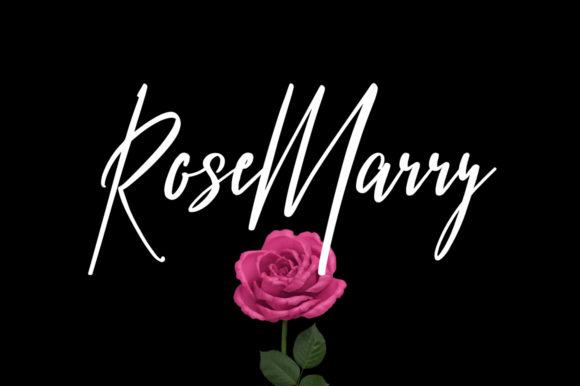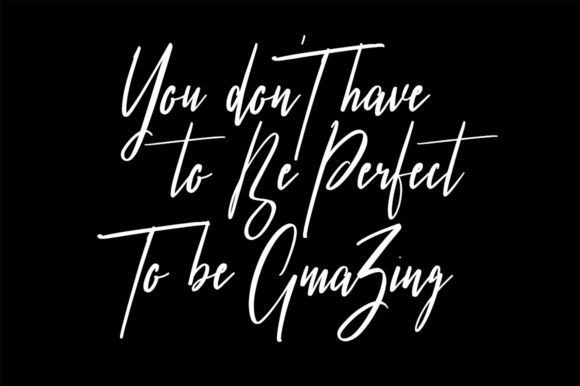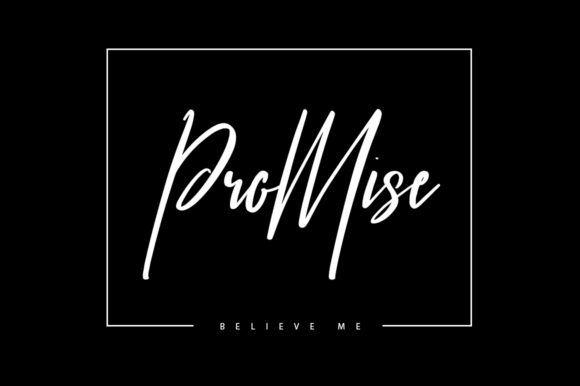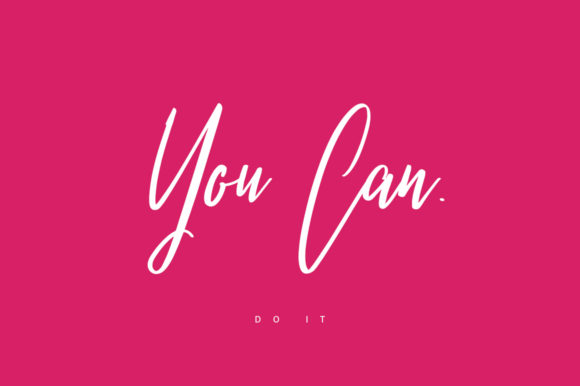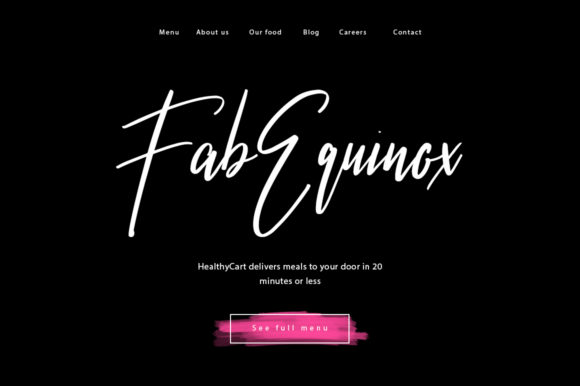
Introducing Contaur Font: The Modern Script Font for Creative Projects
In the world of typography, fonts play a crucial role in conveying the tone and personality of a brand or project. For designers and crafters looking for a modern and trendy script font, Contaur Font is an excellent choice. This amazing script font brings its own unique style and is perfect for creating stunning logos, branding materials, social media graphics, and crafty DIY projects.
What Makes Contaur Font Stand Out?
Contaur Font boasts a distinctive and elegant design that sets it apart from other script fonts. Its modern and trendy look makes it an ideal choice for designers and crafters who want to add a touch of sophistication to their projects. The font’s unique style is characterized by its flowing lines, beautiful swashes, and intricate details.
When it comes to creating logos and branding materials, the right font can make all the difference. Contaur Font is designed to help you create stunning logos that reflect your brand’s personality. Its modern and trendy look makes it perfect for businesses and individuals who want to establish a strong brand identity. Whether you’re creating a logo for a fashion brand, a beauty company, or a lifestyle business, Contaur Font is an excellent choice.
Elevate Your Social Media Graphics
In today’s digital age, social media graphics play a crucial role in capturing the attention of your audience. Contaur Font can help you create stunning social media graphics that stand out from the crowd. Whether you’re creating graphics for Instagram, Facebook, Twitter, or Pinterest, this font is sure to add a touch of elegance and sophistication to your designs.
Ideal for Crafty DIY Projects
If you’re a crafter or DIY enthusiast, you’ll love Contaur Font for your projects. Whether you’re creating handmade cards, scrapbooking pages, or crafty signs, this font is perfect for adding a personal touch to your creations. Its unique style and elegant design make it an excellent choice for crafters who want to add a touch of sophistication to their projects.
Key Features of Contaur Font
• Modern and trendy design: Contaur Font boasts a unique and elegant design that is perfect for modern projects.
• Script font: This font is a beautiful script font that adds a touch of sophistication to any project.
• Unique style: Contaur Font has a distinctive style that sets it apart from other script fonts.
• Perfect for logos and branding: This font is ideal for creating stunning logos and branding materials.
• Elegant swashes and details: Contaur Font features beautiful swashes and intricate details that add to its elegance.
Tips for Using Contaur Font
To get the most out of Contaur Font, here are some tips to keep in mind:
• Use it for headlines and titles: Contaur Font is perfect for headlines and titles, where you want to make a bold statement.
• Experiment with different colors: This font looks great in a variety of colors, so don’t be afraid to experiment and find the perfect color for your project.
• Pair it with other fonts: Contaur Font can be paired with other fonts to create a unique and interesting look.
• Use it for digital and print projects: This font is versatile and can be used for both digital and print projects.
In conclusion, Contaur Font is an amazing script font that is perfect for designers and crafters looking for a modern and trendy font for their projects. Its unique style, elegant design, and versatility make it an excellent choice for logos, branding, social media graphics, and crafty DIY projects. With its beautiful swashes and intricate details, Contaur Font is sure to add a touch of sophistication to any project.